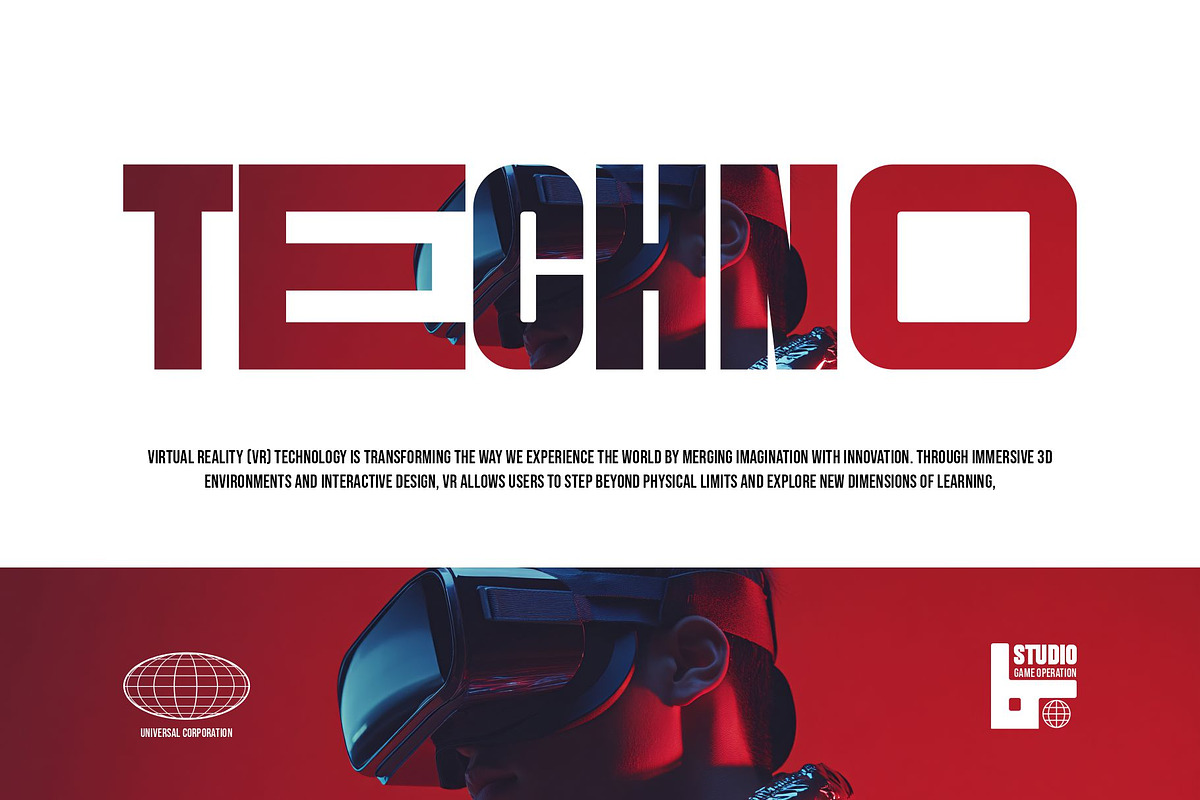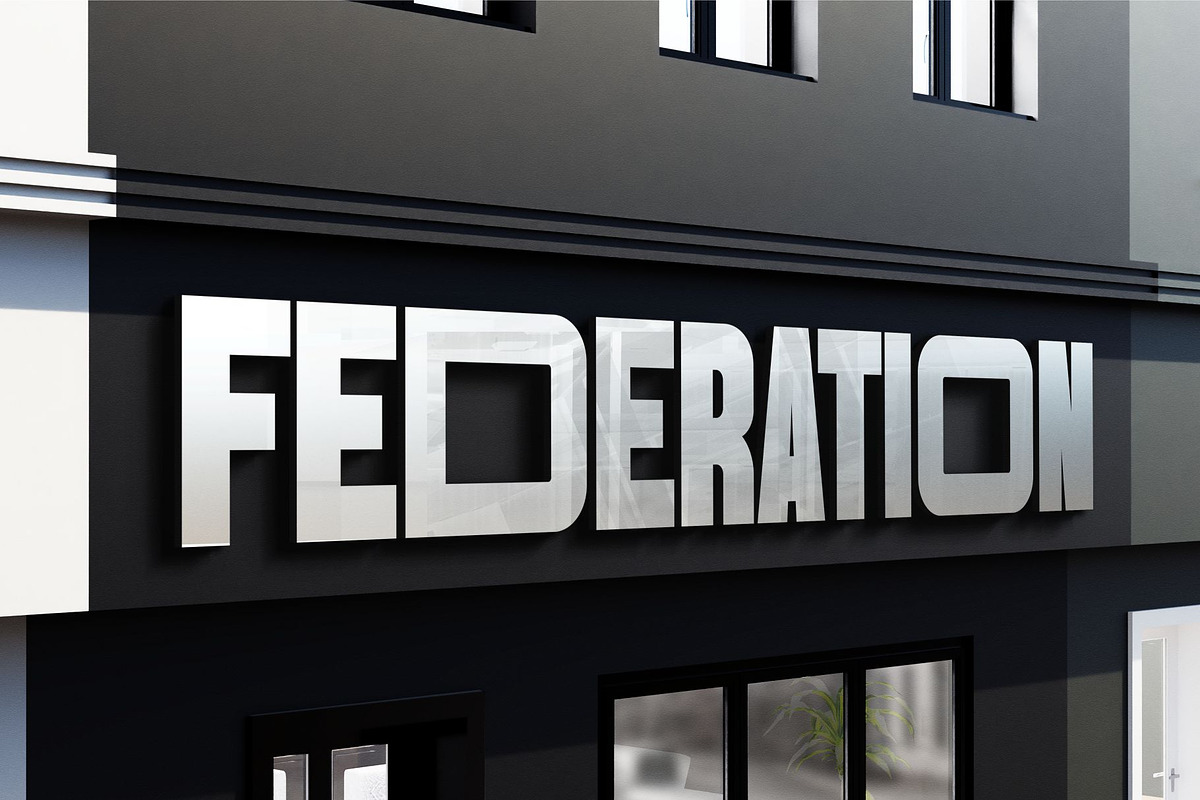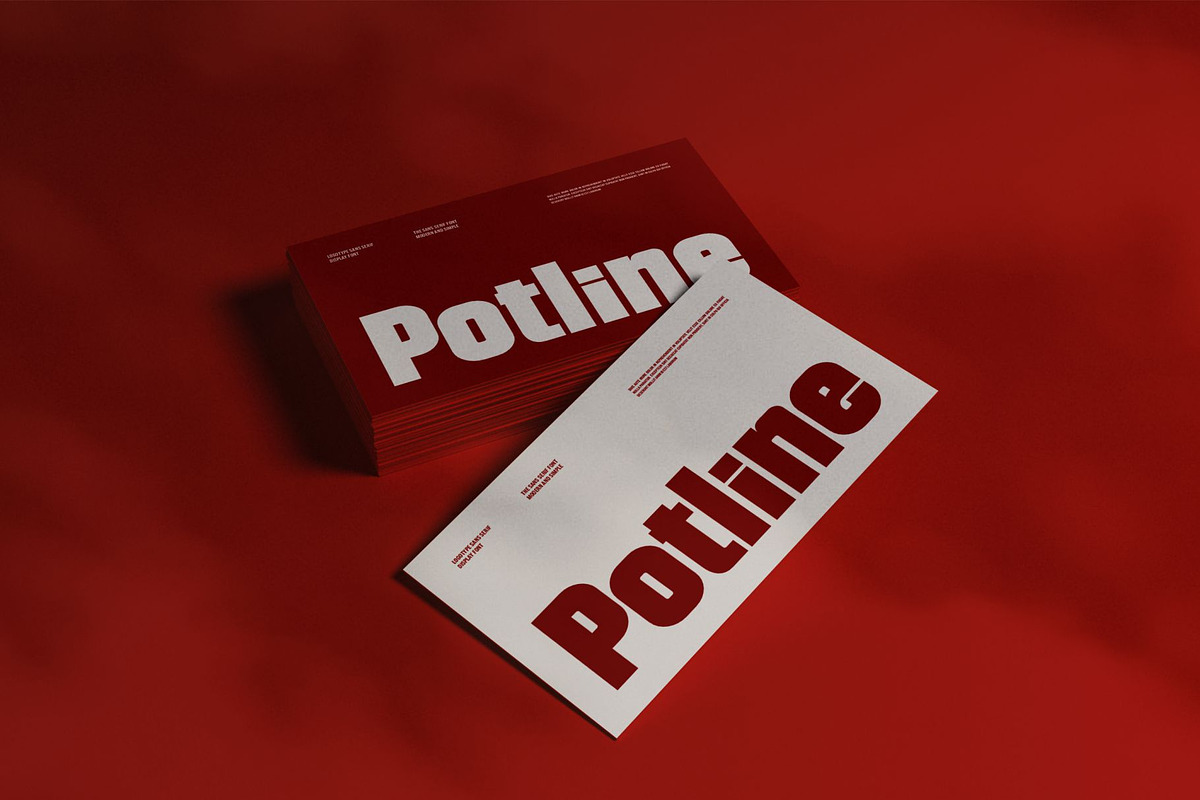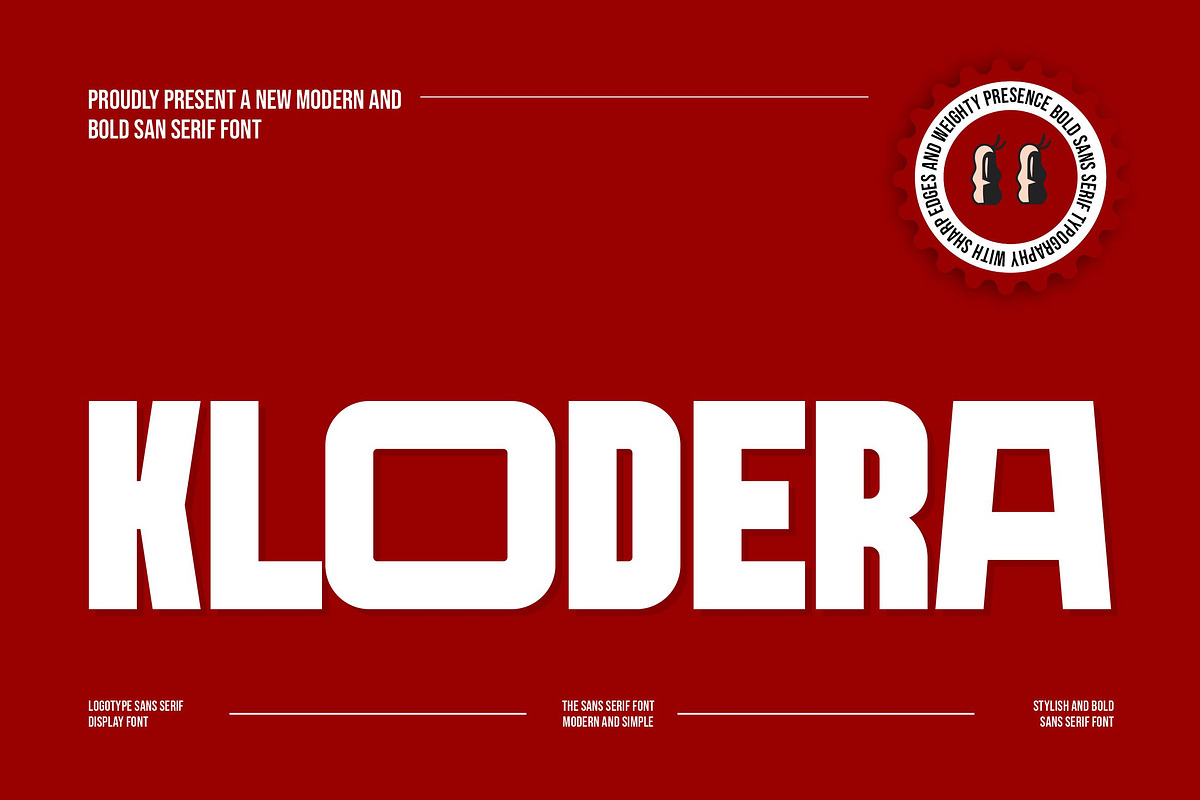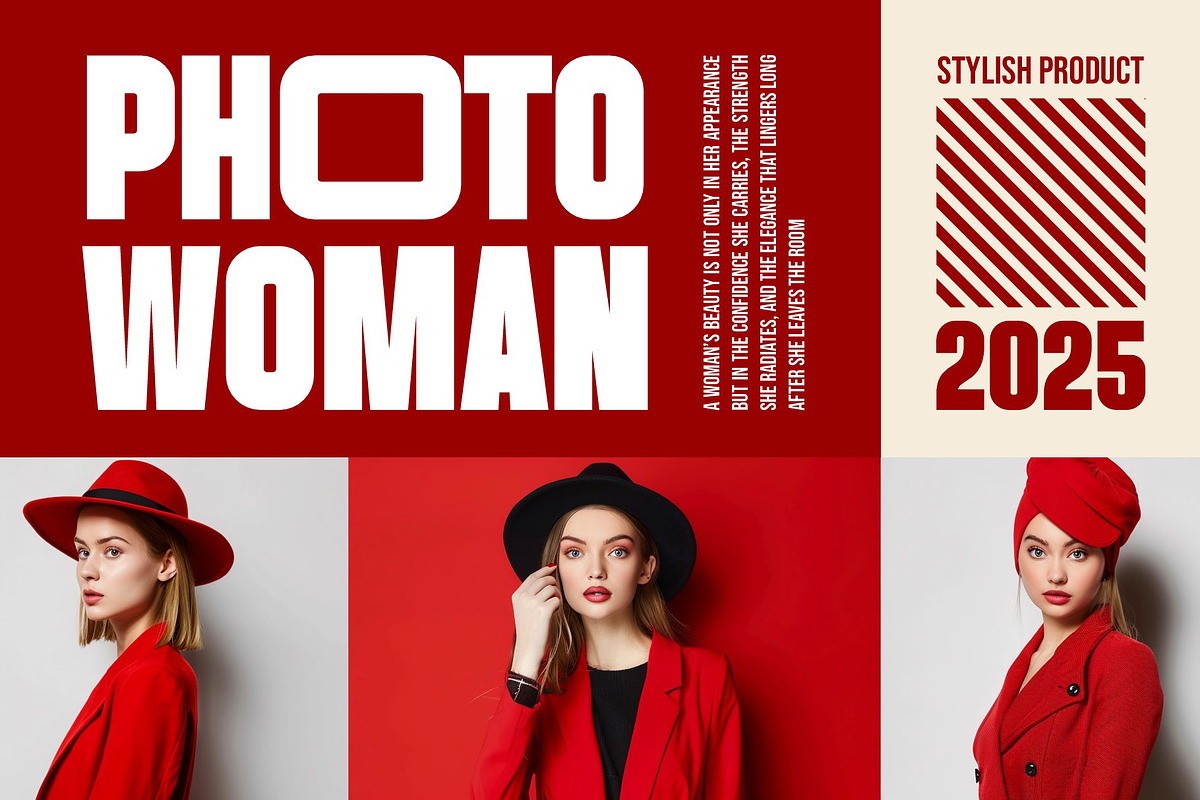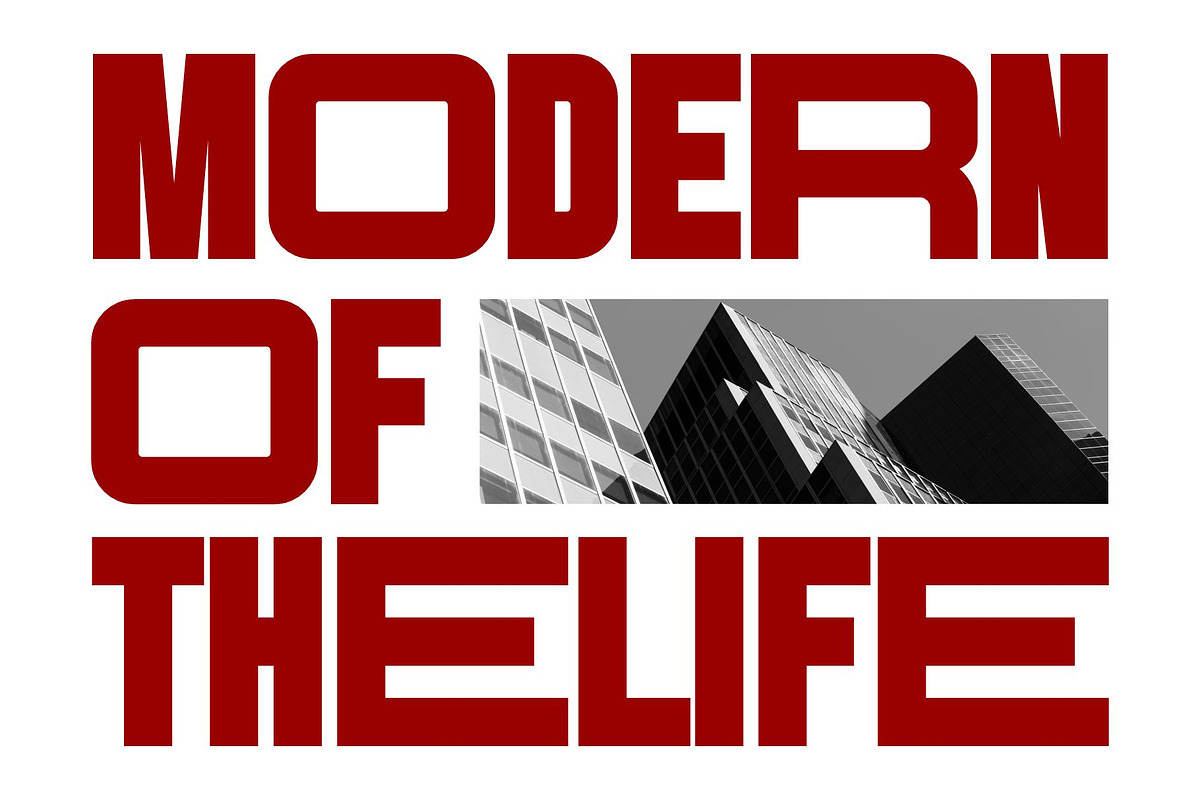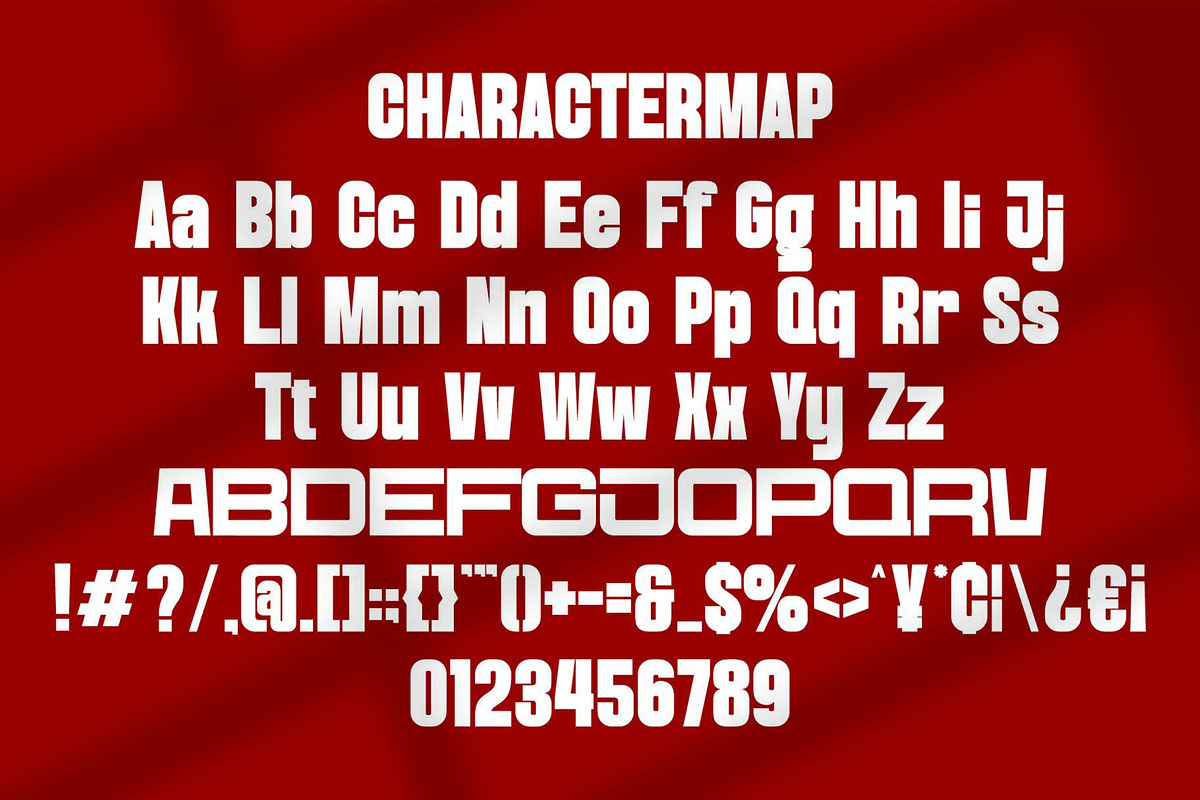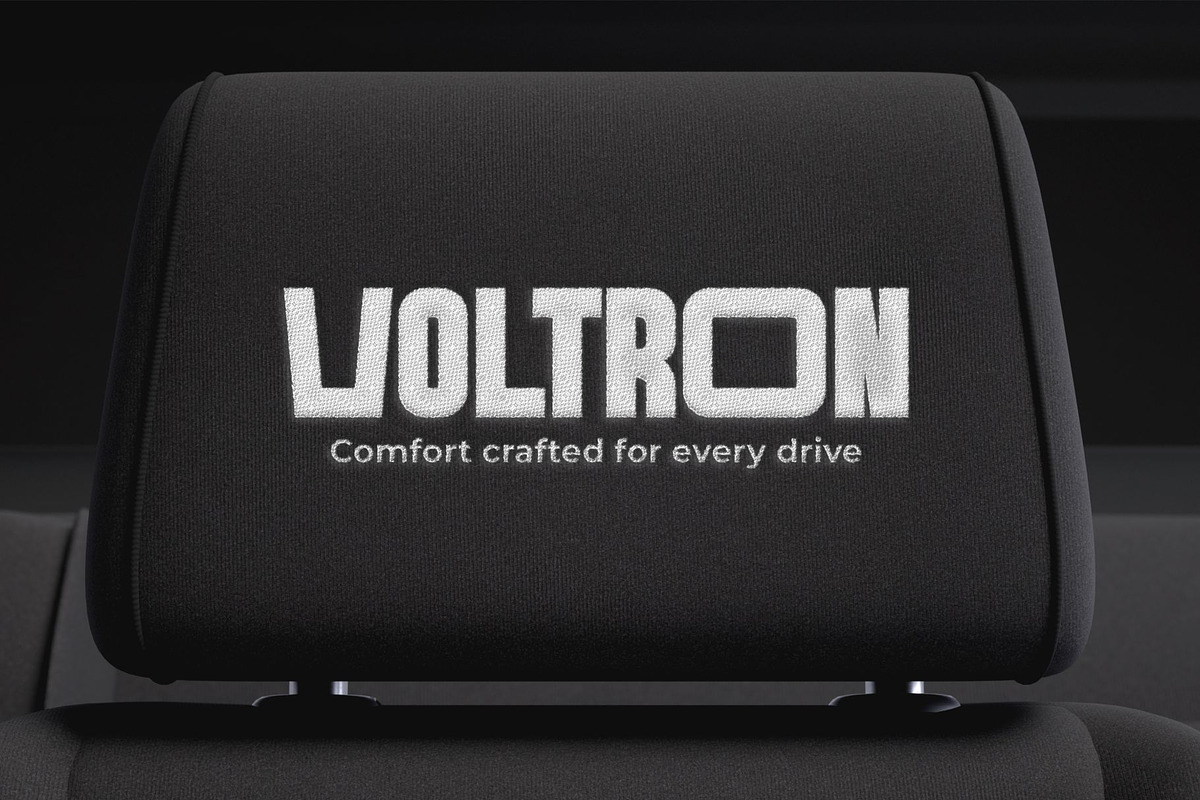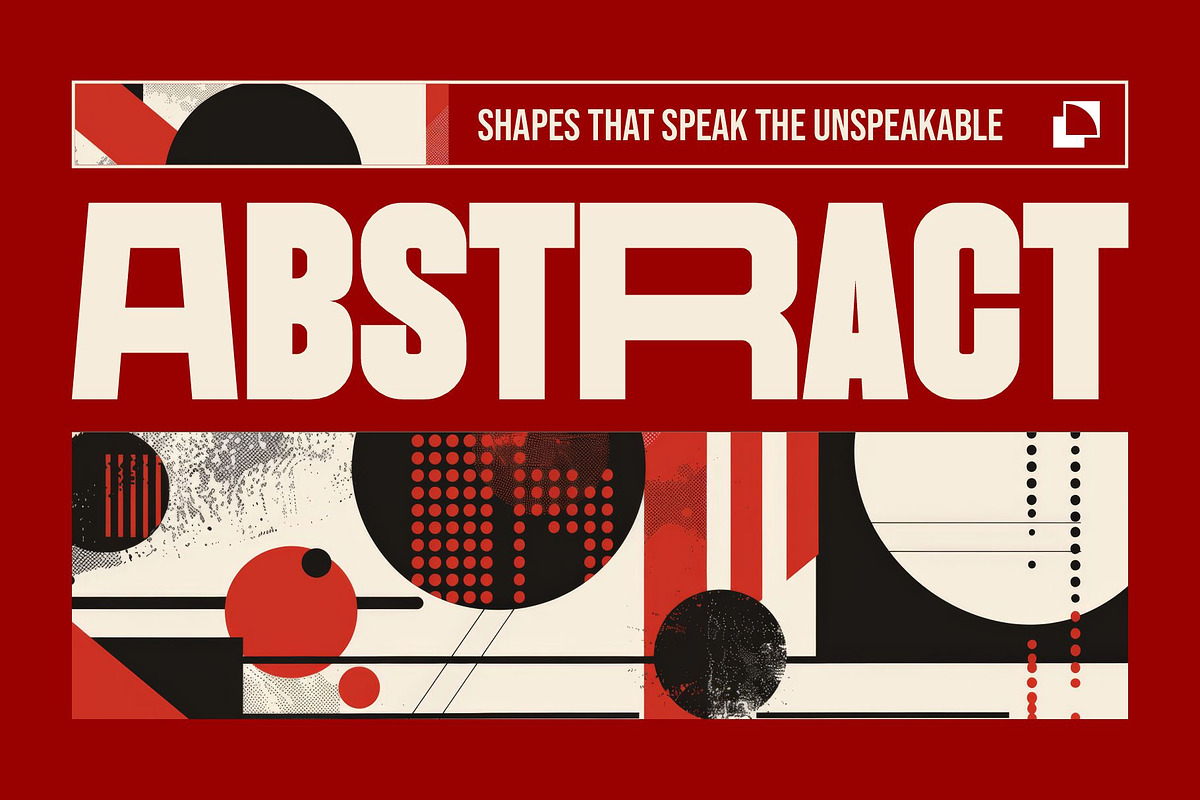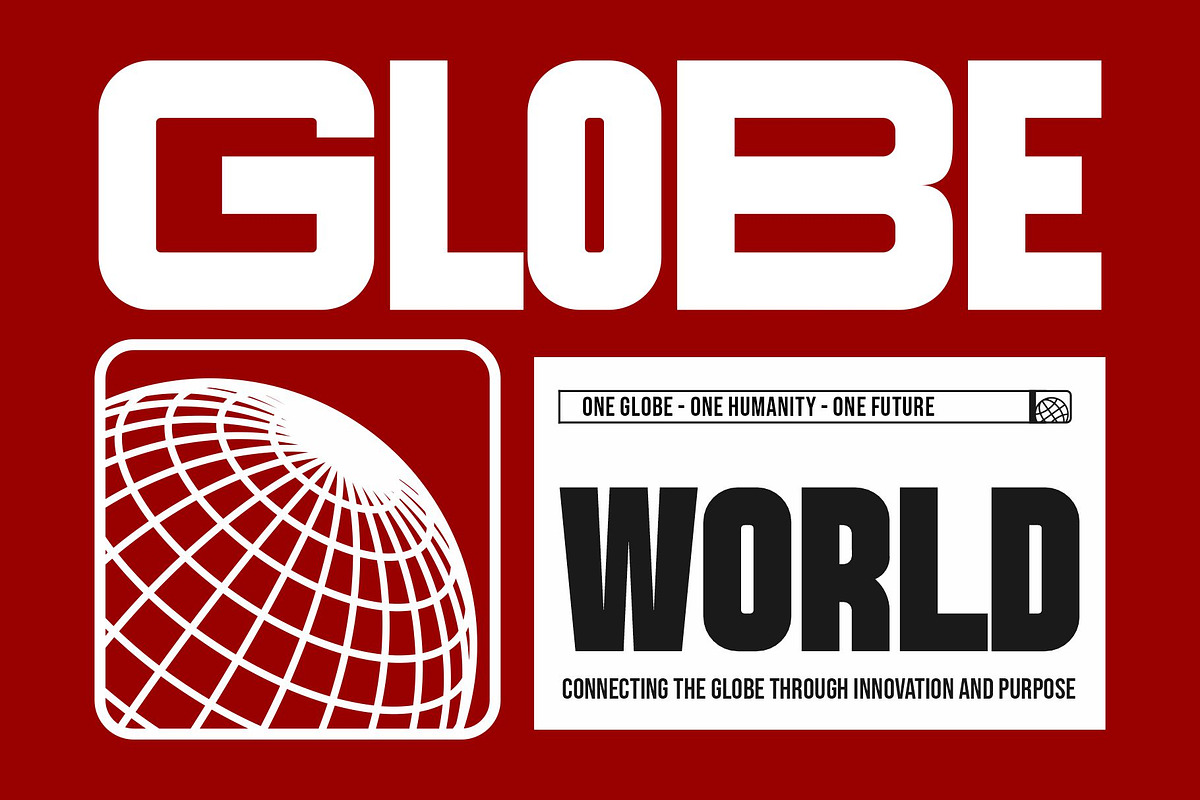
Klodera || Modern Tall Sans Serif
Introducing Klodera sans serif font. This modern bold sans serif font commands attention with its strong lines, confident weight, and striking simplicity. Designed for impact, it delivers clarity and power without sacrificing elegance. Its geometric structure and clean edges make it versatile for headlines, branding, posters, and digital design—anywhere a bold statement is needed. Perfect for modern brands seeking strength and style, this font embodies authority, creativity, and timeless modernity.